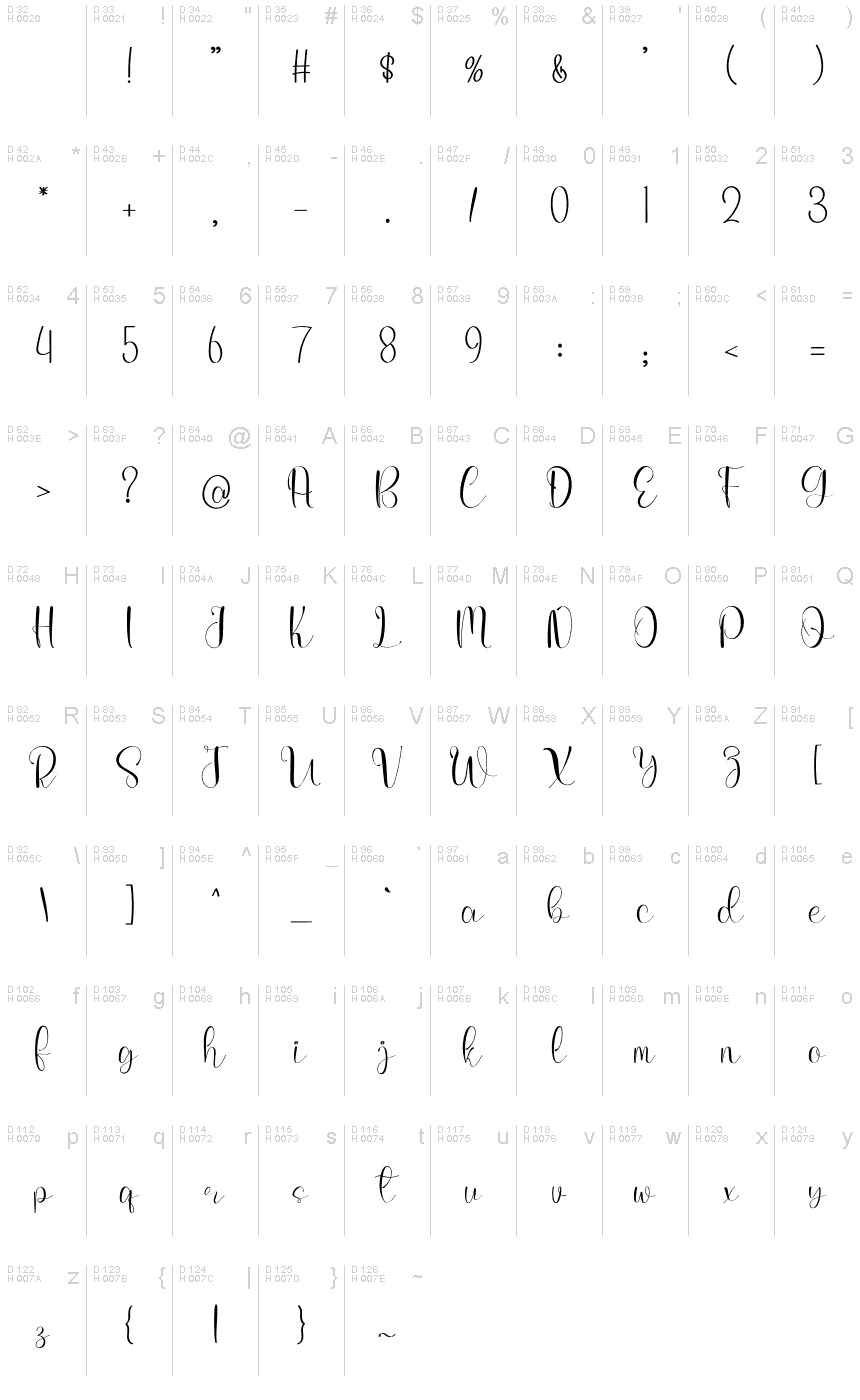
Soulmate
Soulmate is a beautiful and delicate calligraphy font designed by Inermedia Studio. It features a light weight, perfect for adding an elegant touch to any project. Soulmate is ideal for wedding invitations, logos, greeting cards, posters, and more.